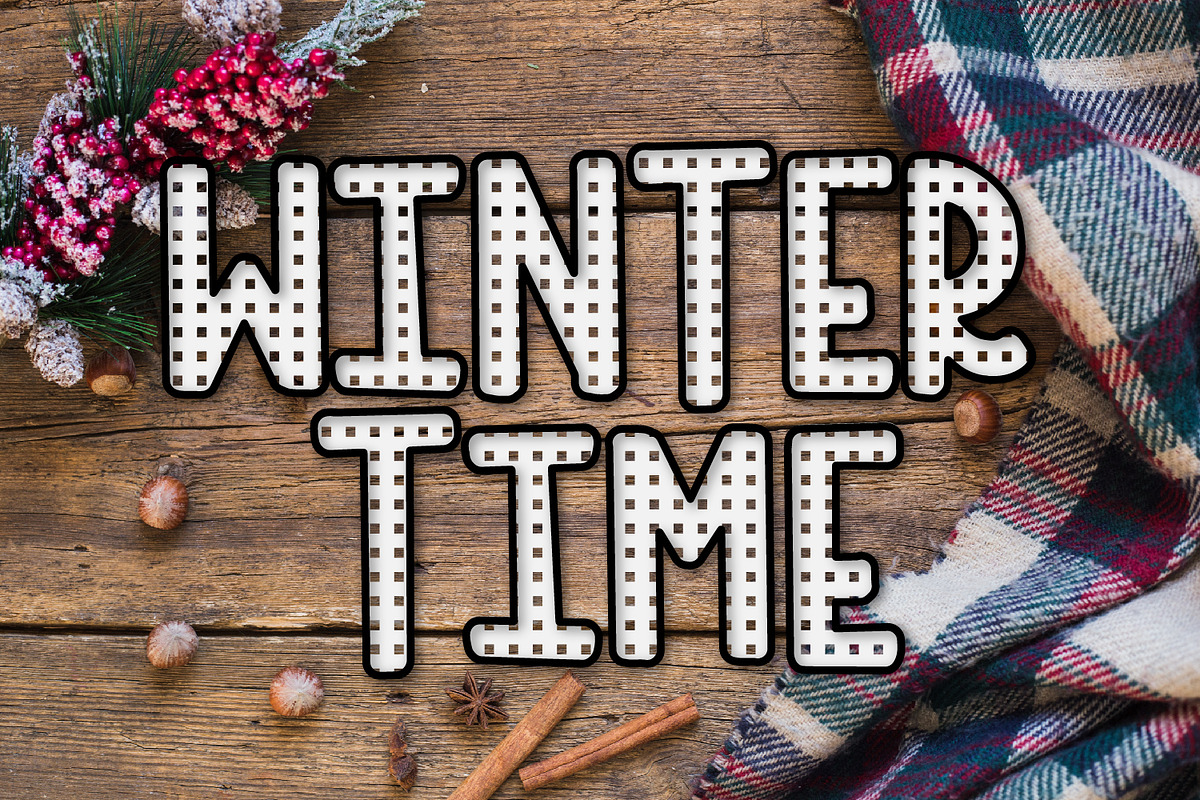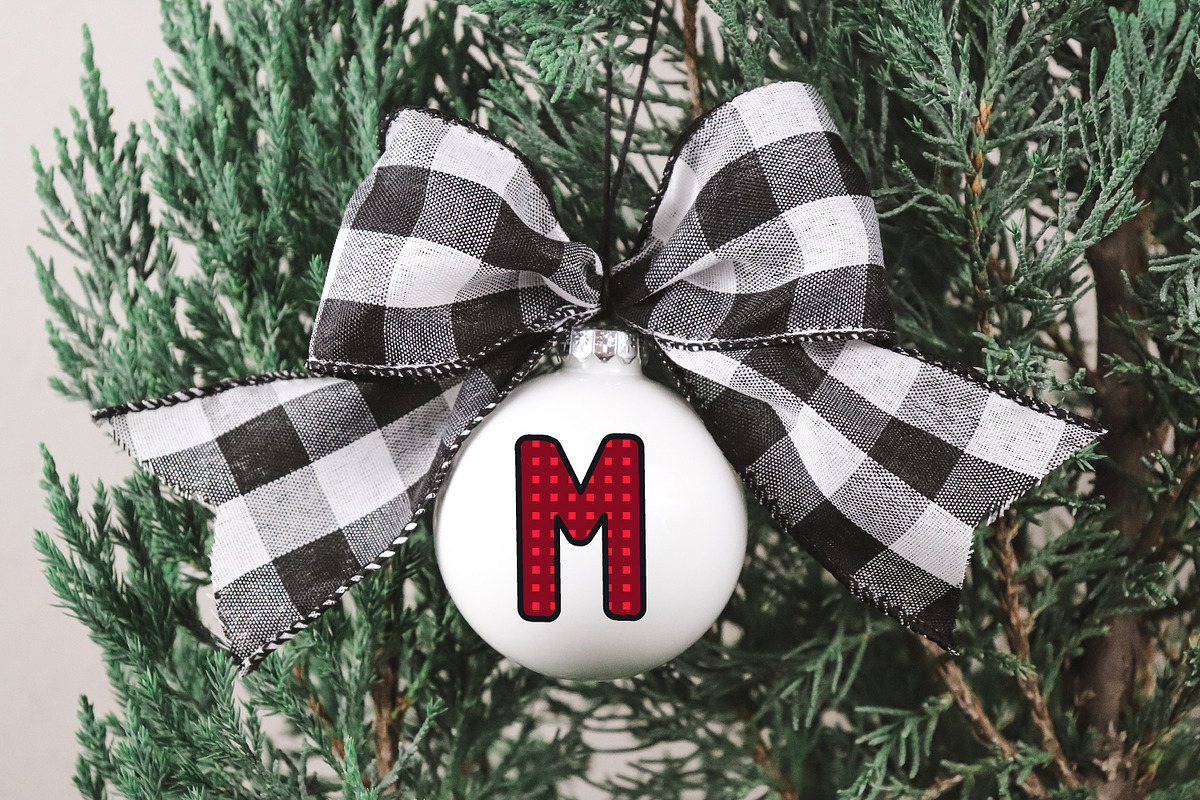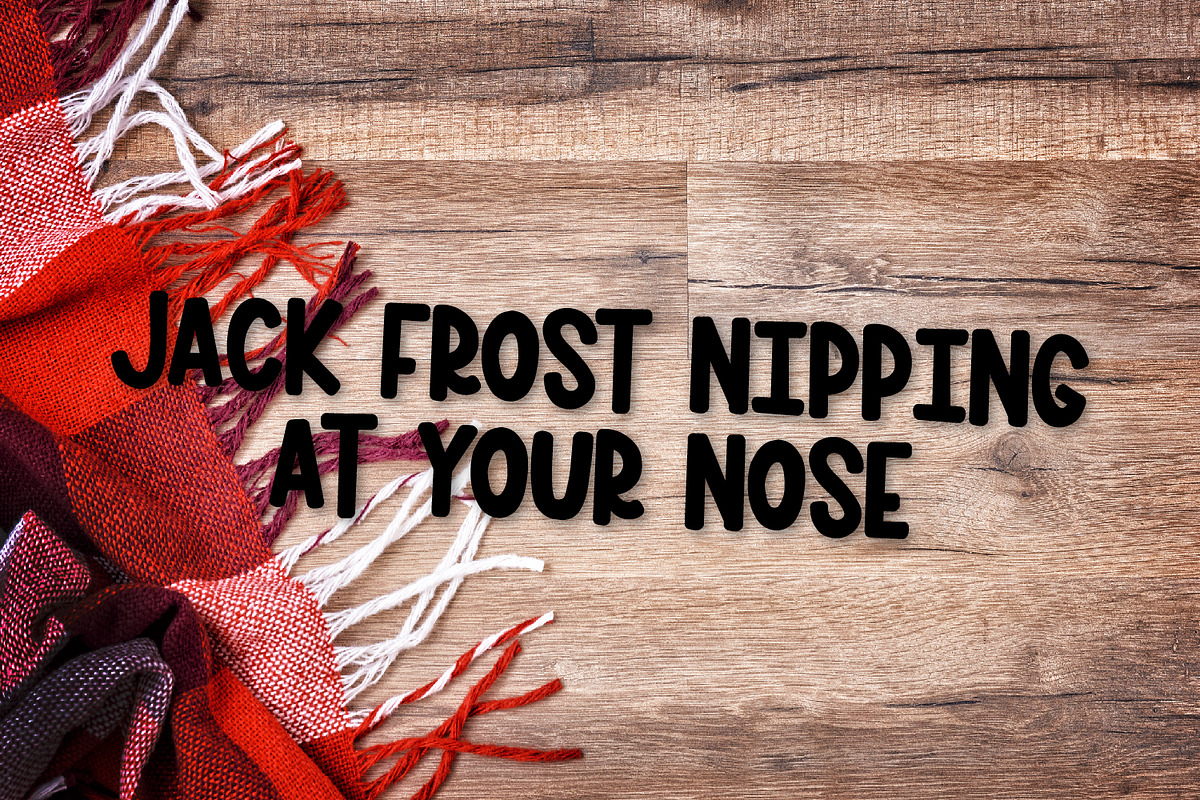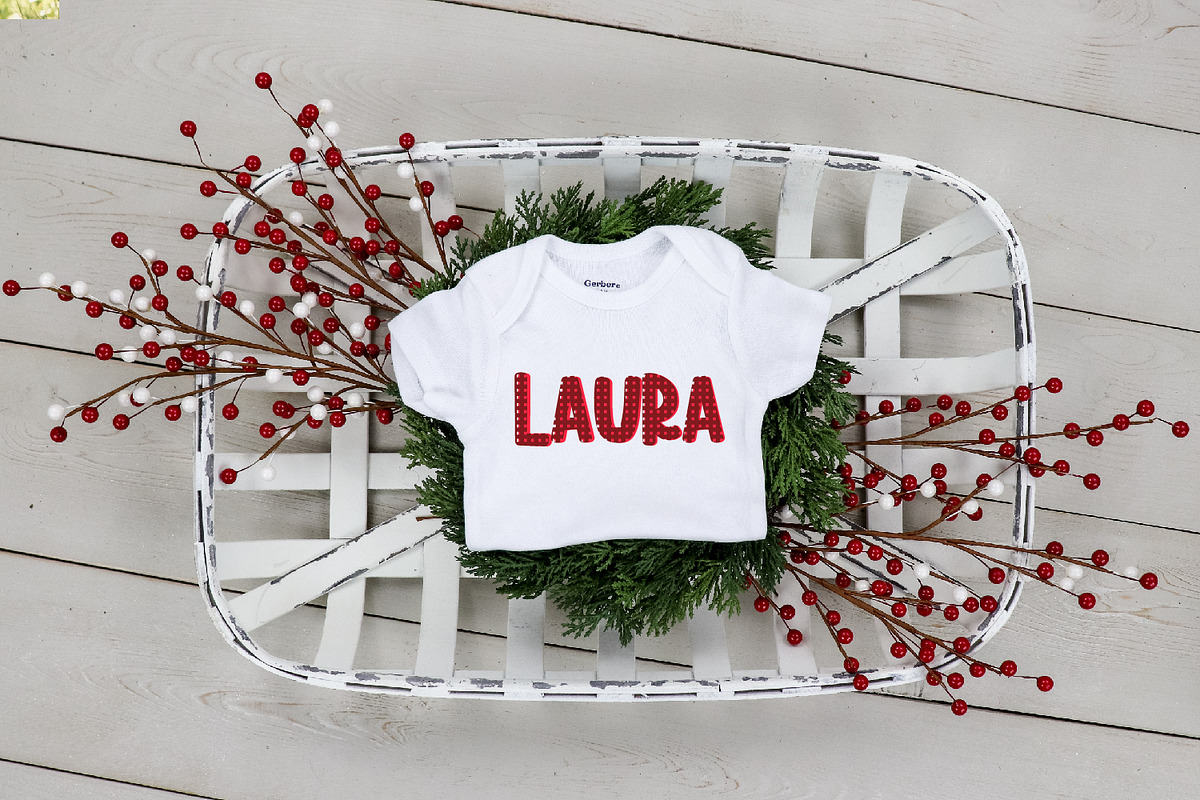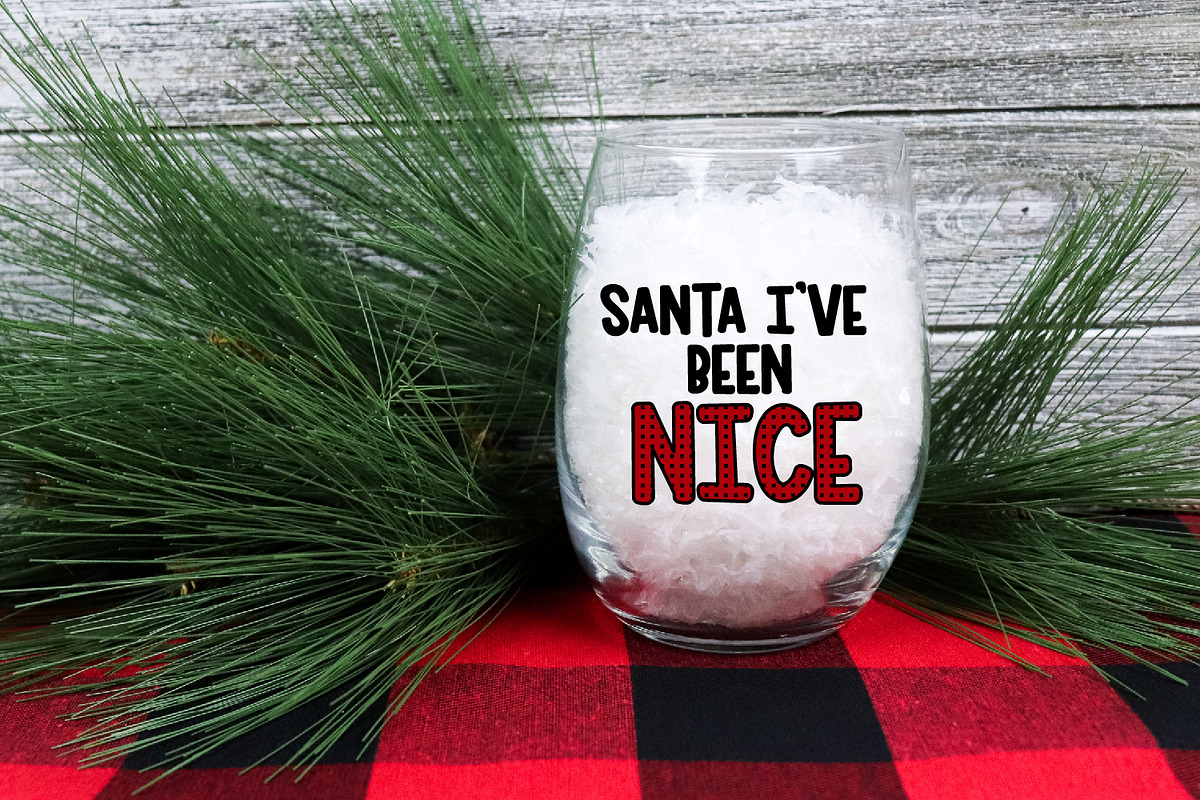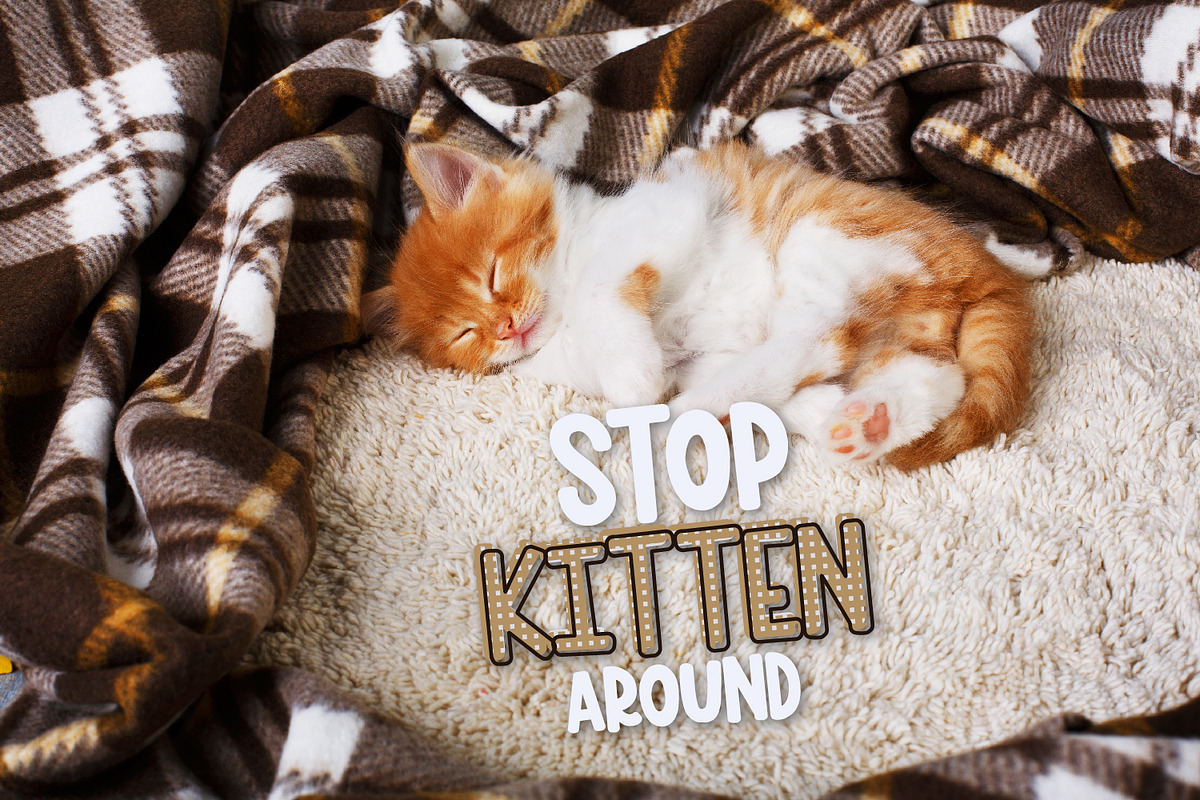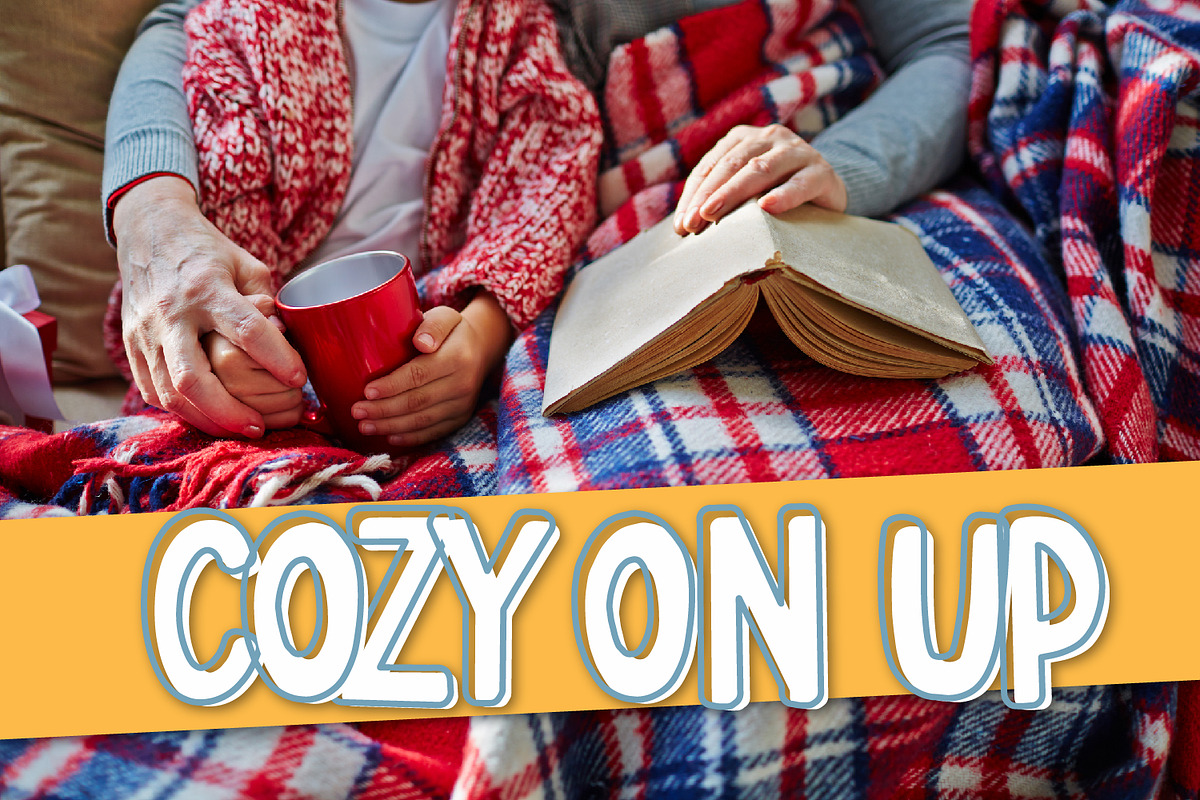
Burgundy -A Plaid Inspired Font Trio
Why Burgundy -A Plaid Inspired Font Trio is worth a look
Burgundy -A Plaid Inspired Font Trio by CraftyLittleNodes fits naturally into Branding, posters, packaging, typography.